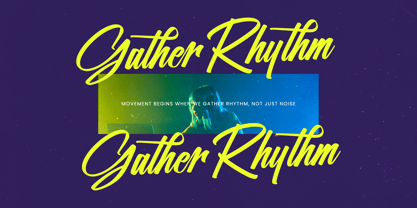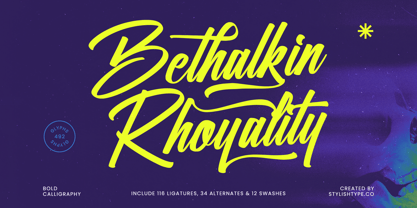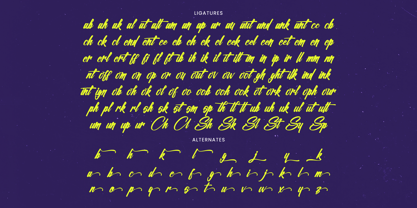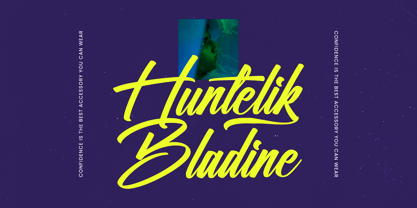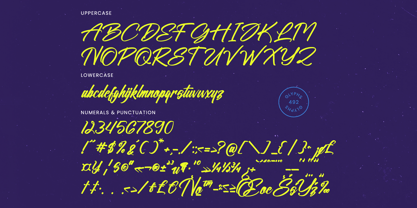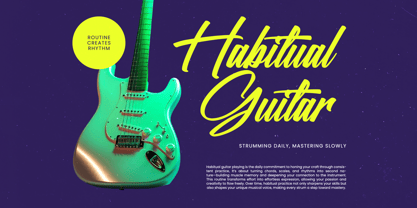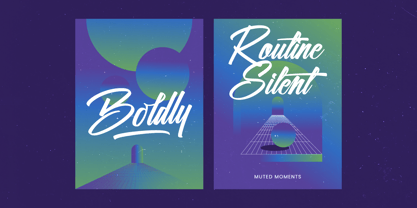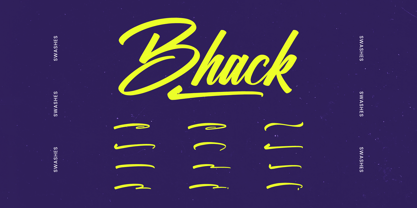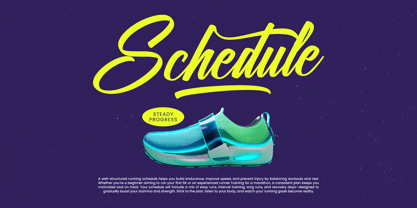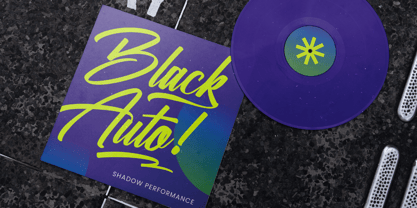
Bethalkin Rhoyality
by Stylishtype Studio
The Bethalkin Rhoyality Font Family was designed by Heru Utama Putra and published by Stylishtype Studio. Bethalkin Rhoyality contains 2 styles and family package options. More about this family
Bethalkin Rhoyality - Bold Calligraphy Font , from Stylishtype , Suitable for any projects such as: logos, branding projects, homeware designs, product packaging, mugs, quotes, posters, shopping bags, t-shirts, book covers, name card, invitation cards, greeting cards, label, photography, watermark, special events, and all your other luxury and beautiful projects that need a Luxury Script taste.